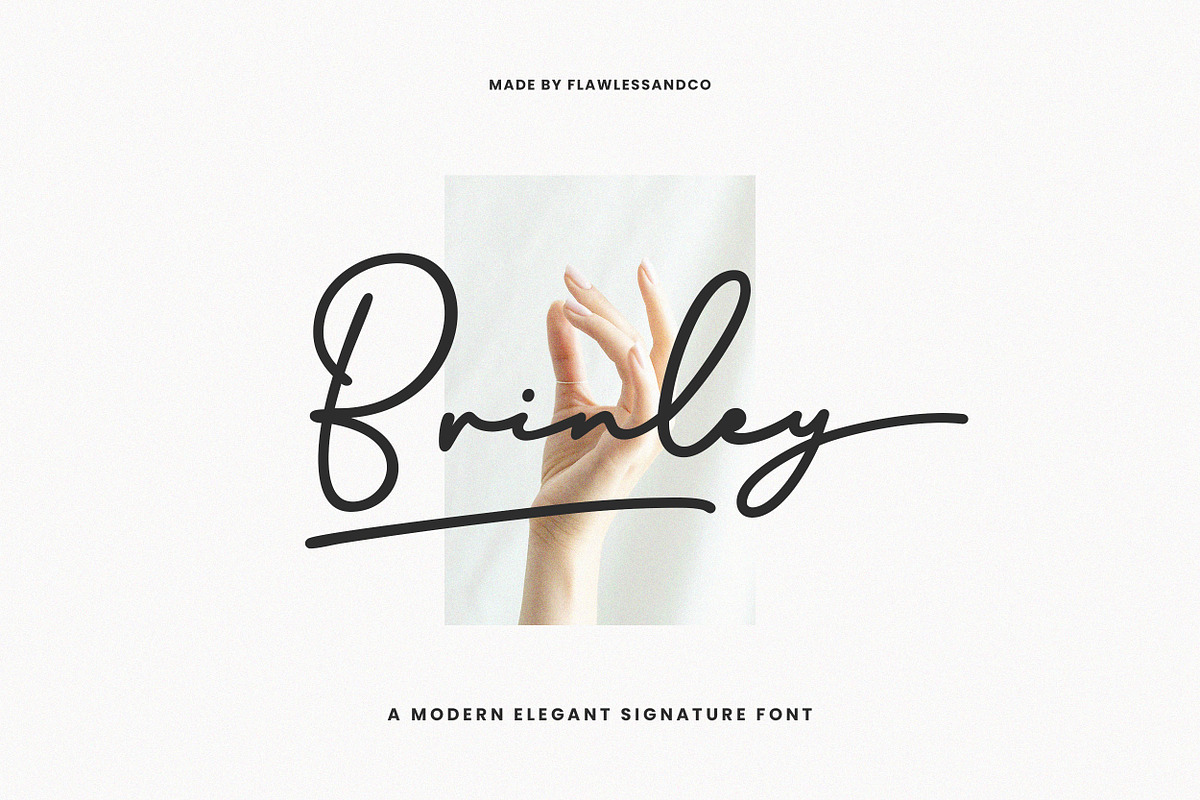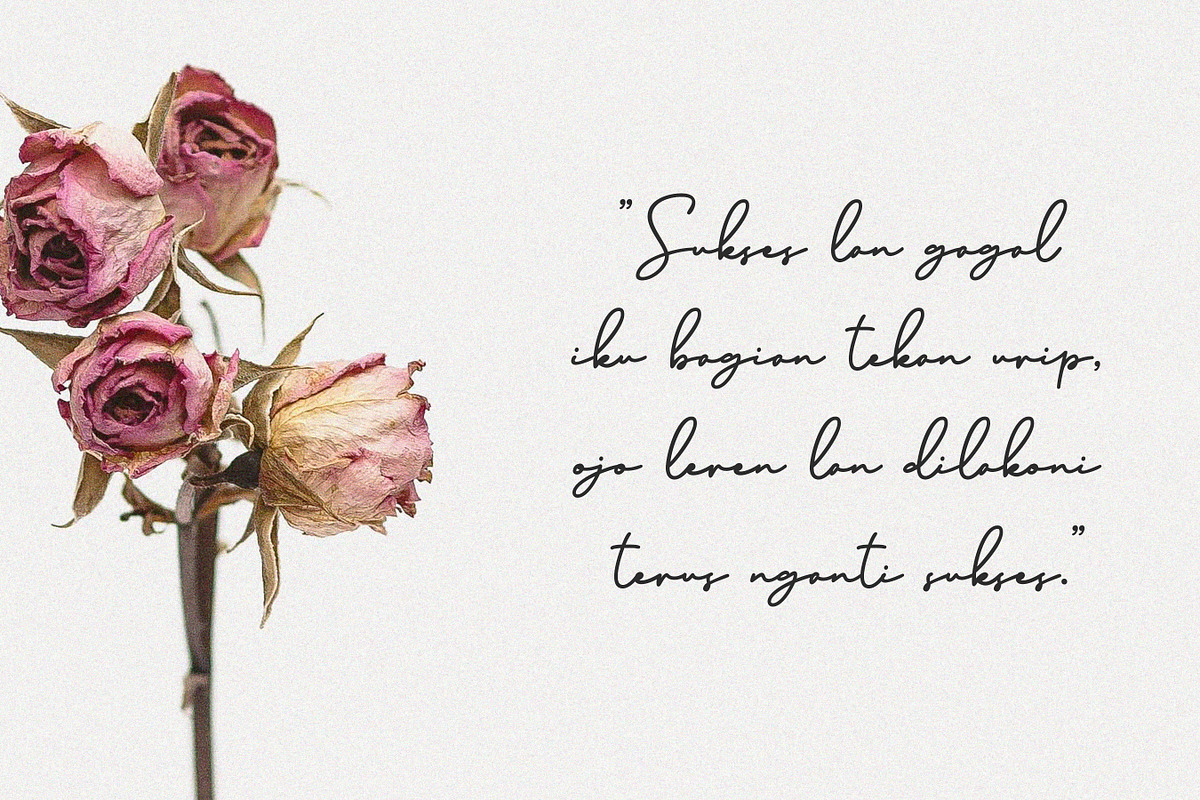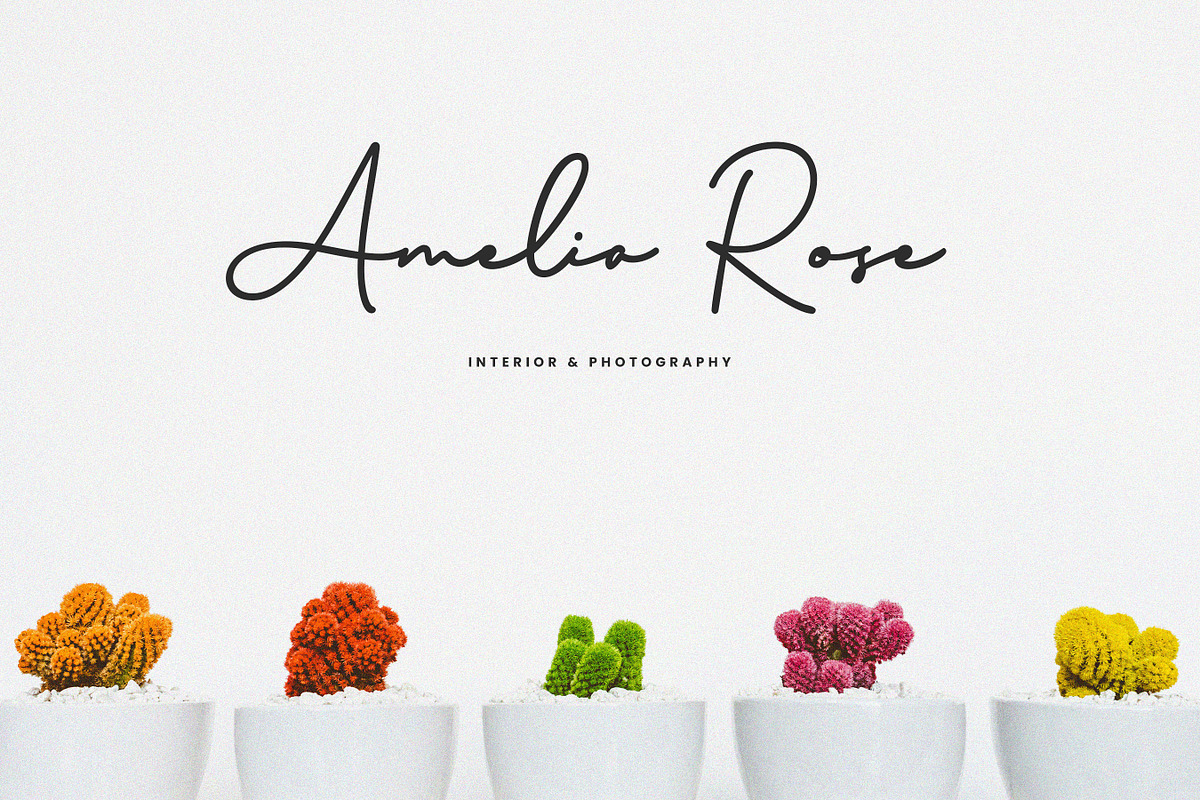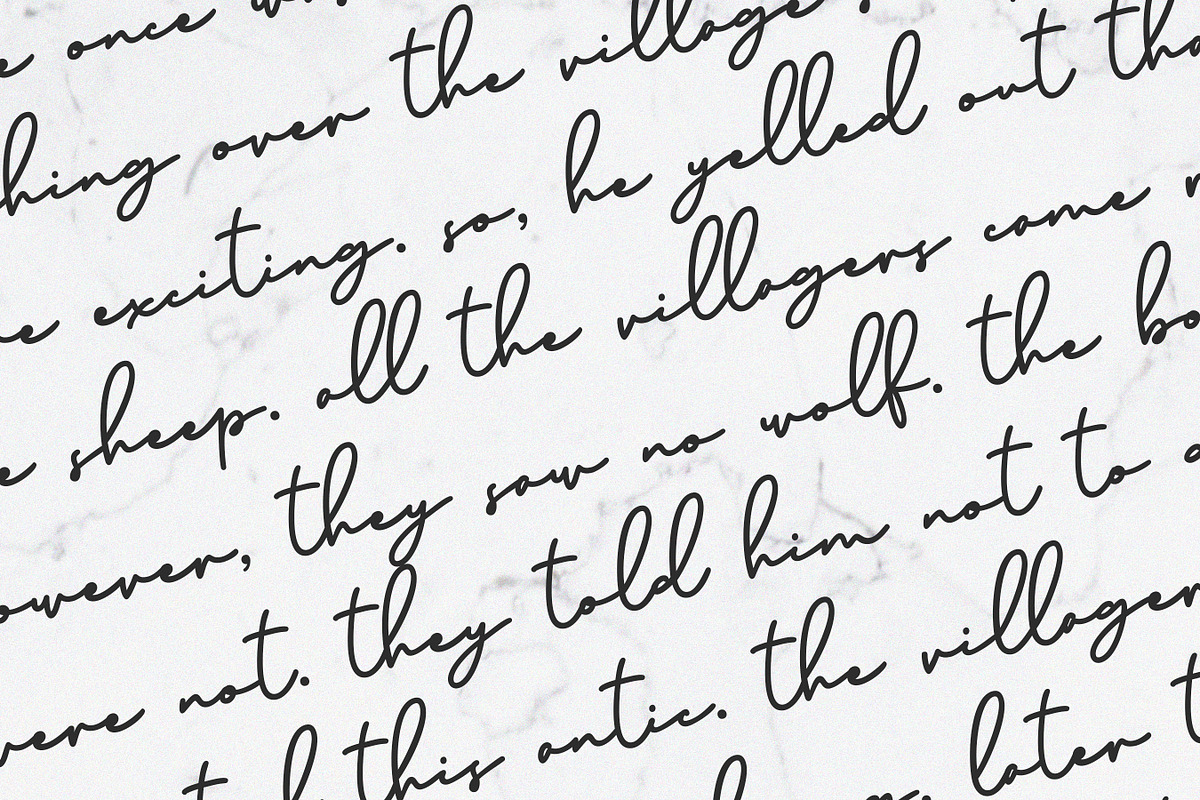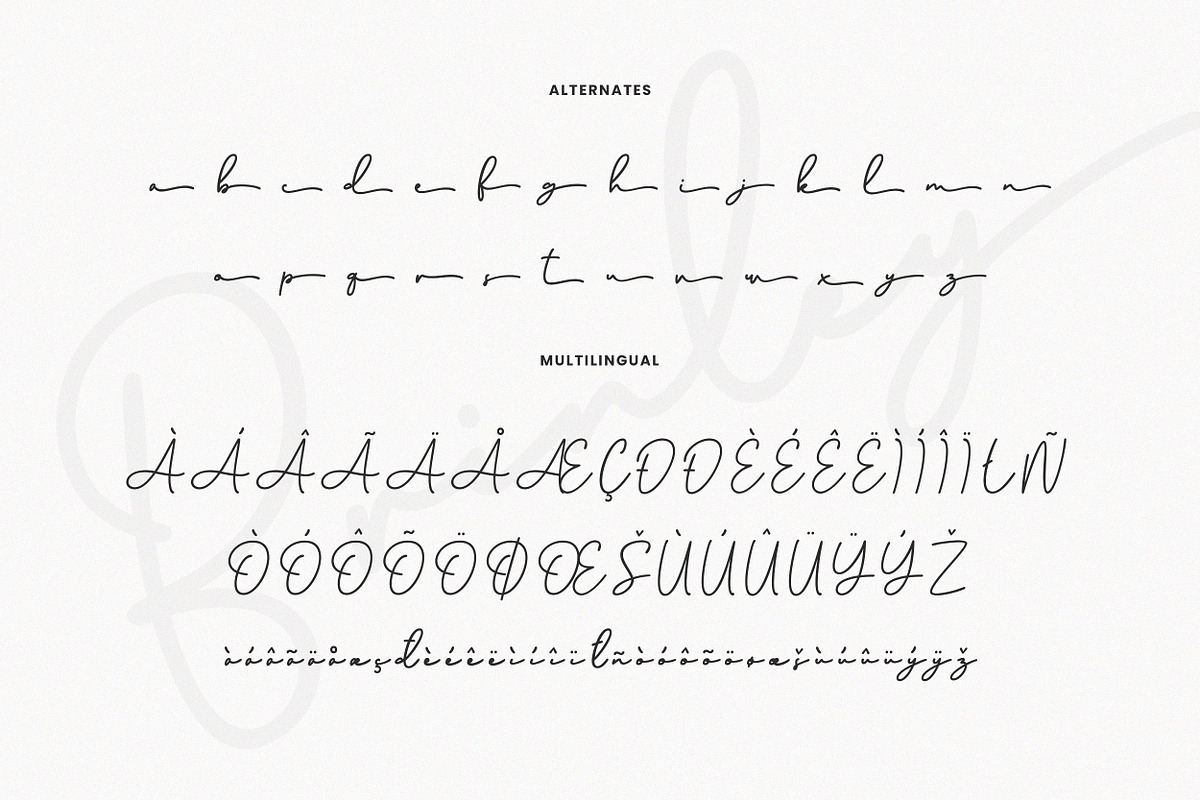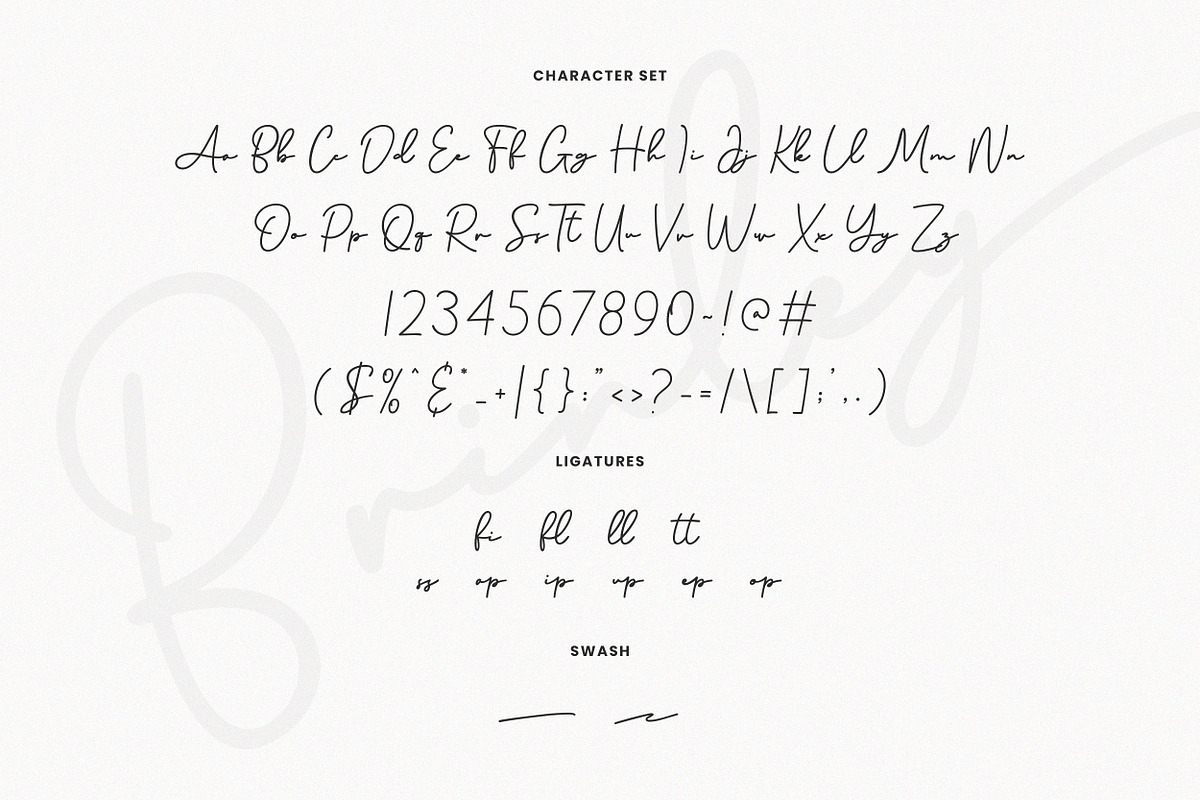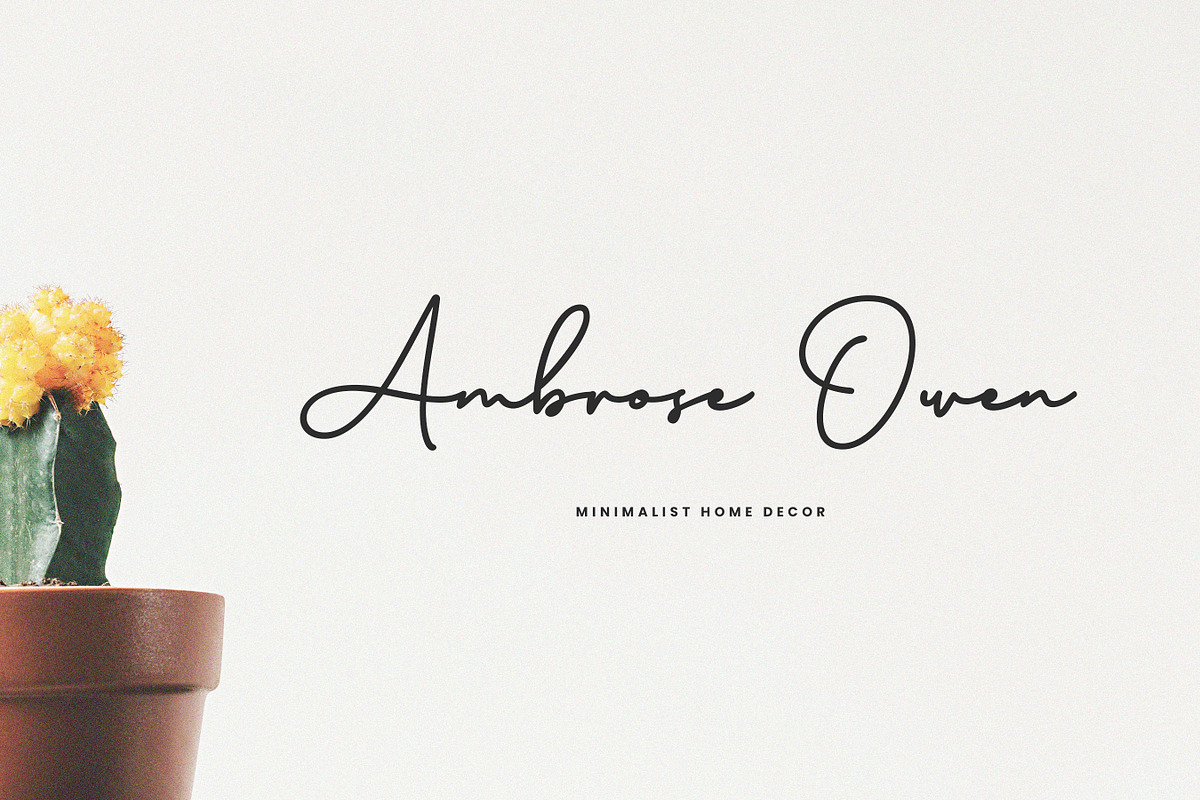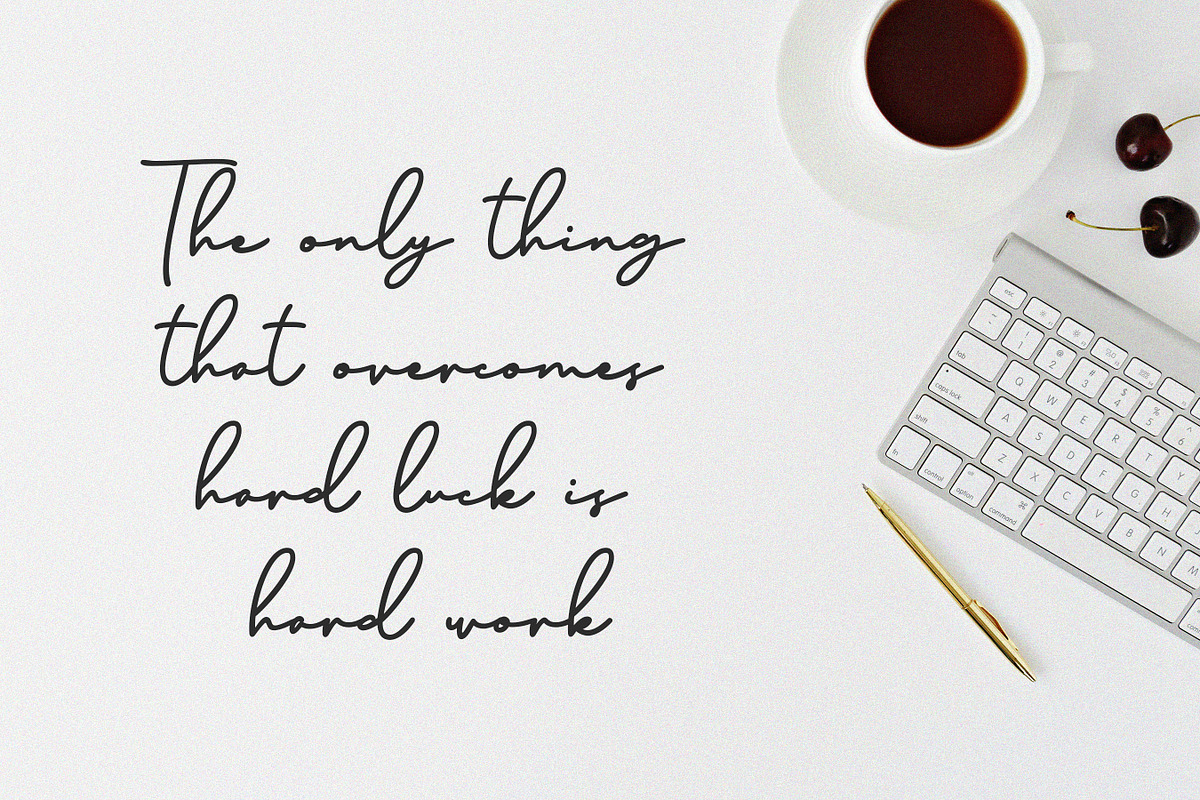
Brinley - Modern Handwritten Font
Brinley is an elegant and captivating modern handwritten script font. It features smooth and flowing lines, exuding a natural and personal touch. Brinley is well-suited for various designs, including branding, wedding invitations, packaging designs, and posters.
Multilingual Uppercase alphabet A-Z Lowercase alphabet a-z Numbers 0-9 Some punctuation